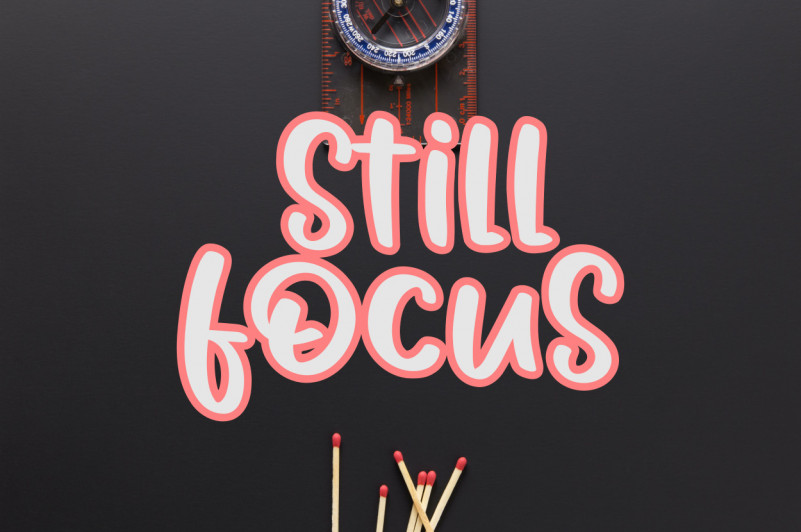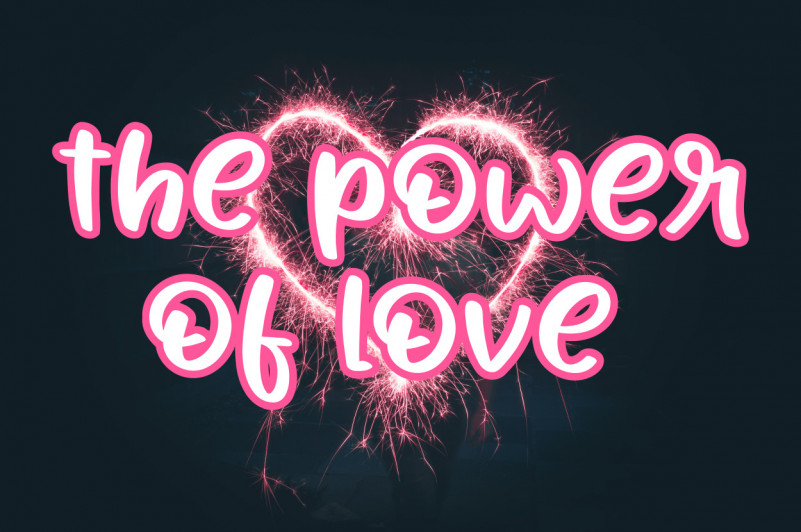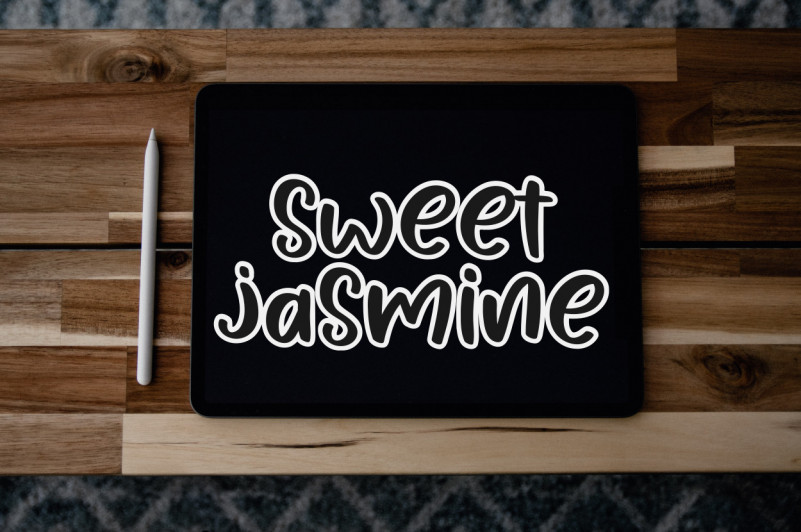
Love Gisela Font
Love Gisela Display Font
This is a unique and interesting display font. Incredibly versatile, this font will fit a wide pool of designs. Fall in love with its incredibly stylish look and use it to create spectacular designs!